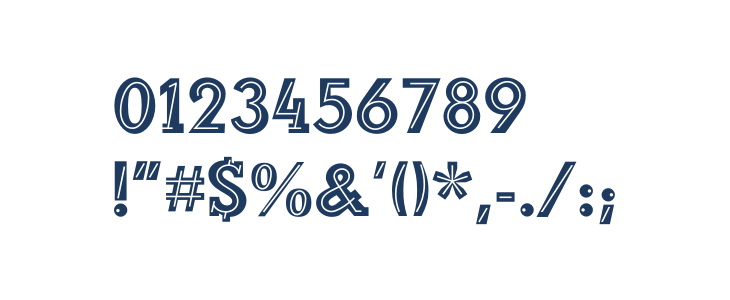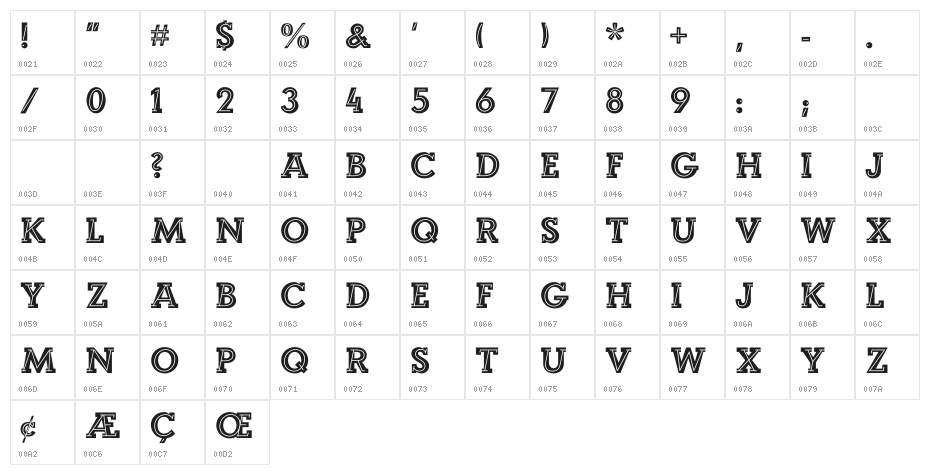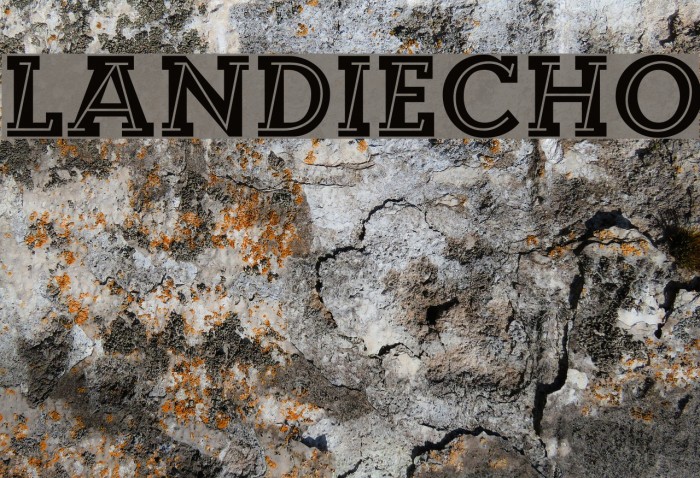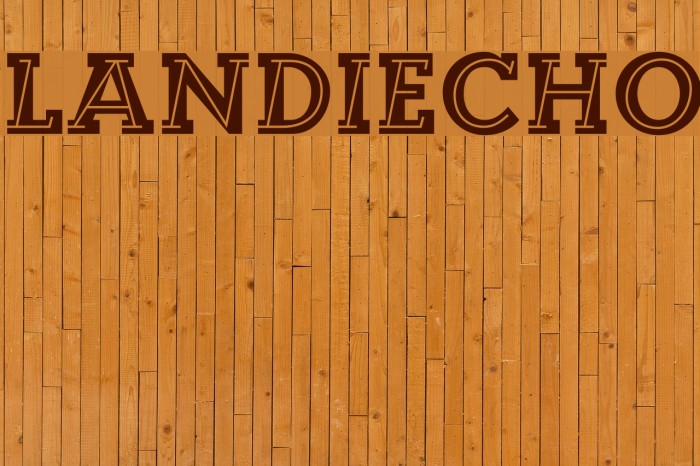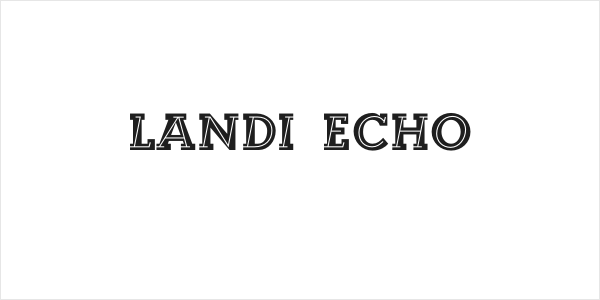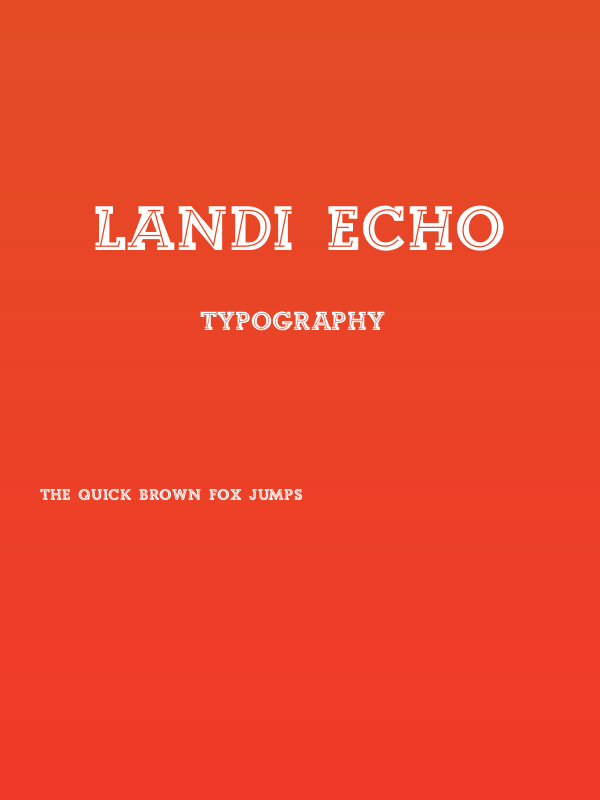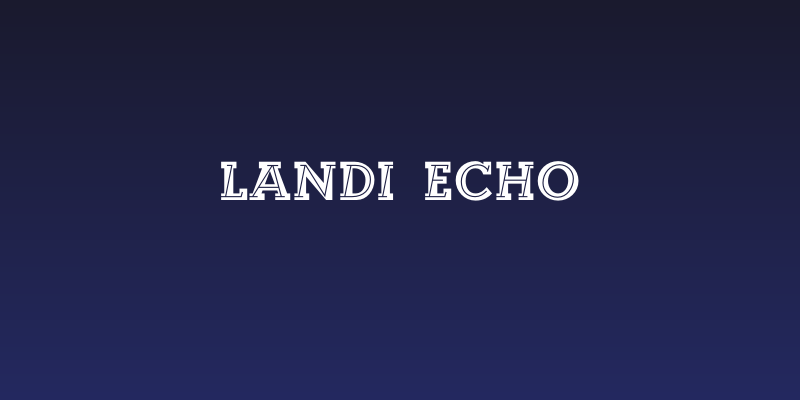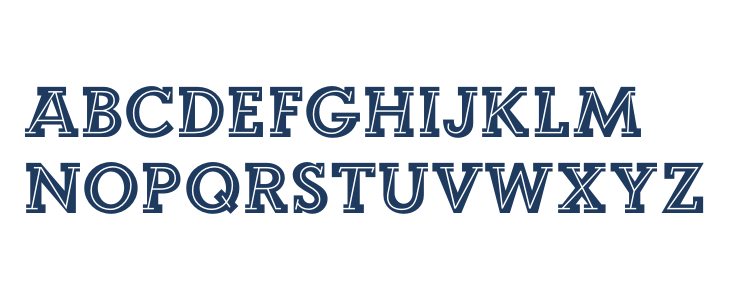
Landi_Echo Font
Landi_Echo Description
This font features a bold and striking design with a distinct outline effect, giving it a three-dimensional appearance. The characters are uppercase and numerals, with a consistent width and height, creating a uniform look. The style is reminiscent of vintage signage or retro posters, with a playful yet sophisticated vibe. The letters have a slight slant, adding a dynamic feel, while the outlines provide a sense of depth and dimension. The font is well-suited for attention-grabbing headlines or titles, where its unique style can be fully appreciated. The spacing between characters is normal, ensuring readability while maintaining its decorative appeal.
| Proposed Projects | Ideal for retro-themed posters, signage, branding, and headlines. |